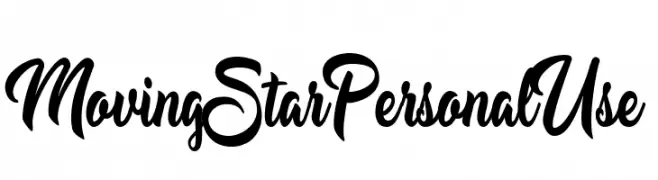
A graceful cursive font with fluid, interconnected strokes and elegant flourishes.
An elegant, flowing script font with a handwritten style.
A playful, handwritten font with curly, decorative strokes.
A whimsical, curly font with decorative uppercase and cursive lowercase letters.
An elegant, flowing script font with tall ascenders and consistent stroke width.
A playful, bold, and rounded font with a hand-drawn feel.
A bold, italic font with smooth curves and a dynamic, modern style.
A stylish cursive font with elegant loops and flourishes.
A dynamic, flowing script font with bold, elegant letterforms.
A bold, high-contrast script font with elegant, flowing letterforms.